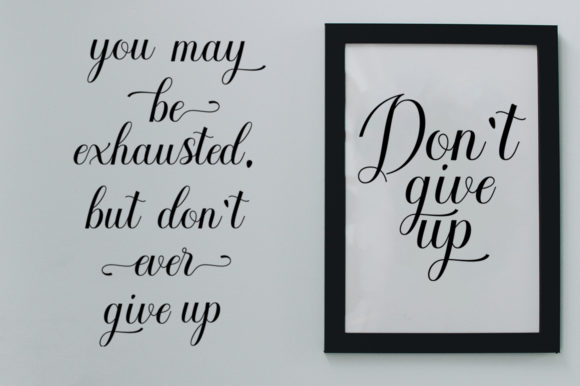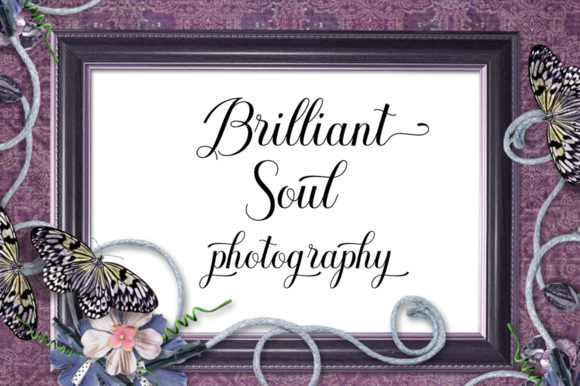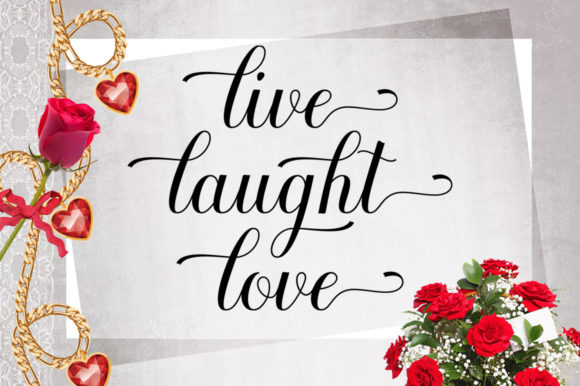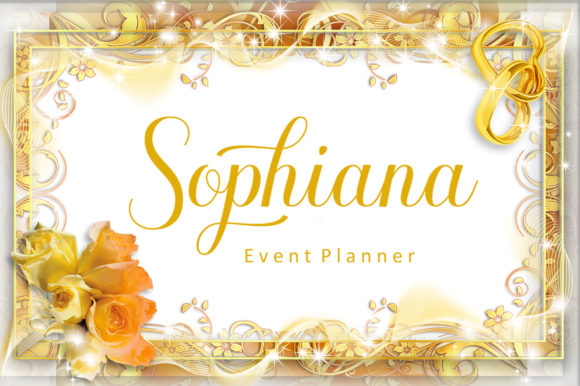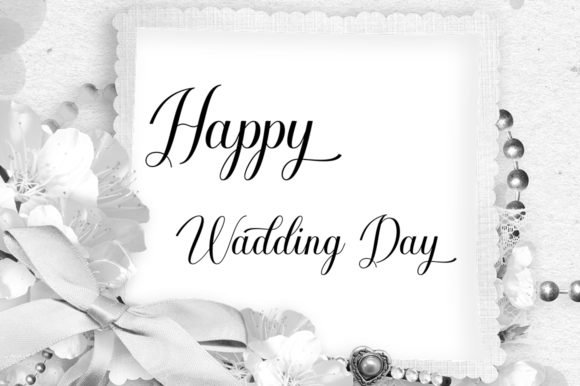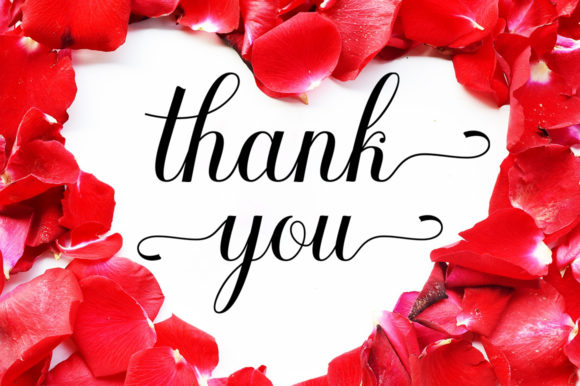
Dalinya Font
About Dalinya Font
Dalinya pays homage to classic calligraphy with its gorgeous letters and swashes. Fall in love with this beautiful script, and use it to add an authentic touch to any design idea!